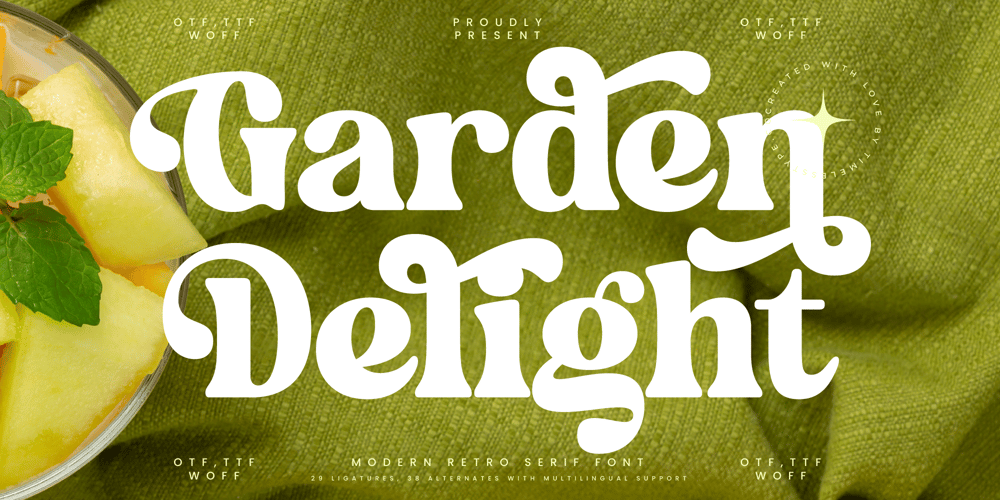
Garden Delight Font Family was designed by Heru Utama Putra and published by Timelesstype Studio. Garden Delight contains 1 styles and family package options. Garden Delight – Modern Retro Serif , from Timelesstype , Suitable for any projects such as: logos, branding projects, homeware designs, product packaging, mugs, quotes, posters, shopping bags, t-shirts, book covers, name card, invitation cards, greeting cards, label, photography, watermark, special events, and all your other luxury and beautiful projects that need a Luxury Serif taste.